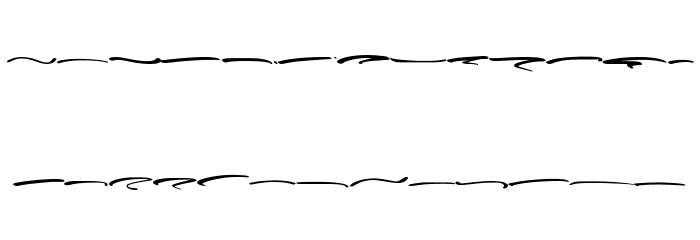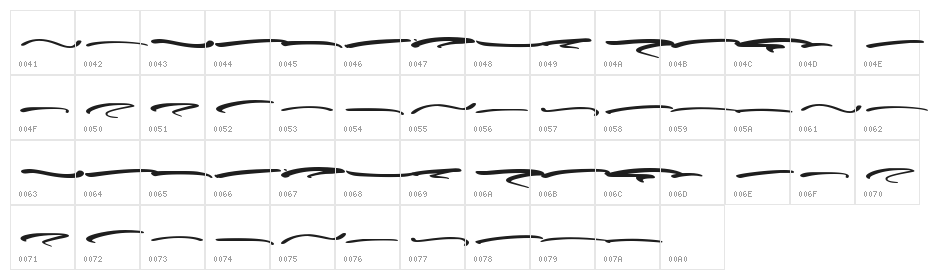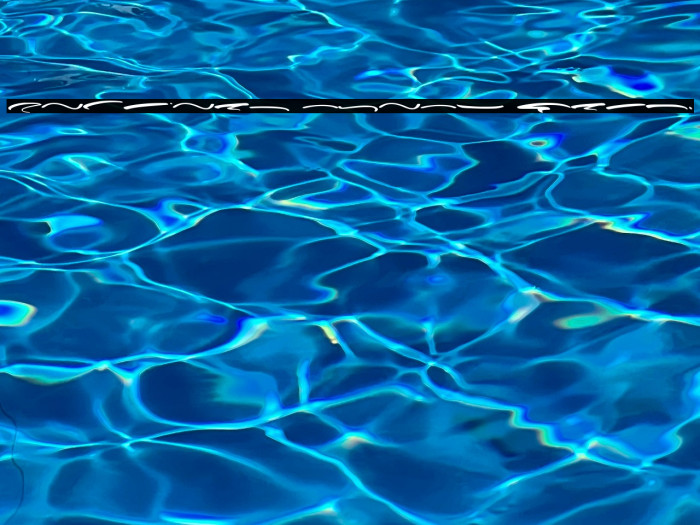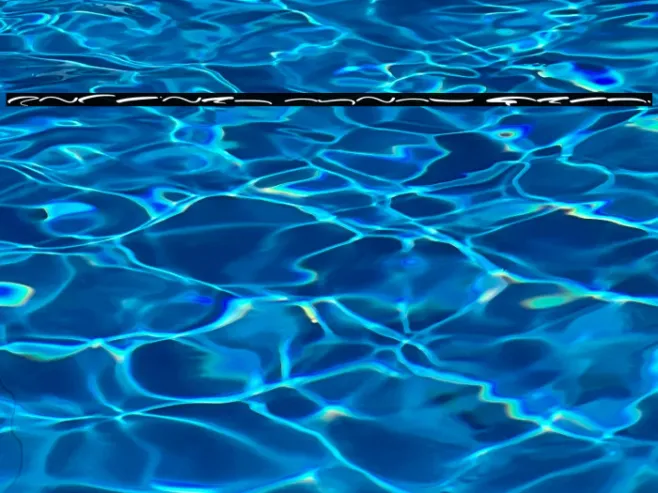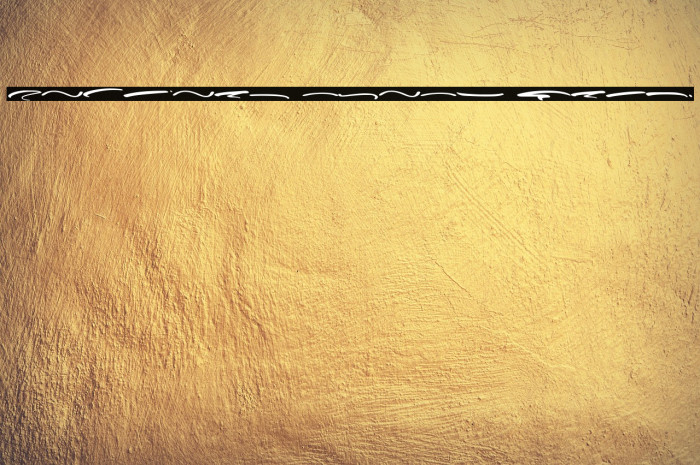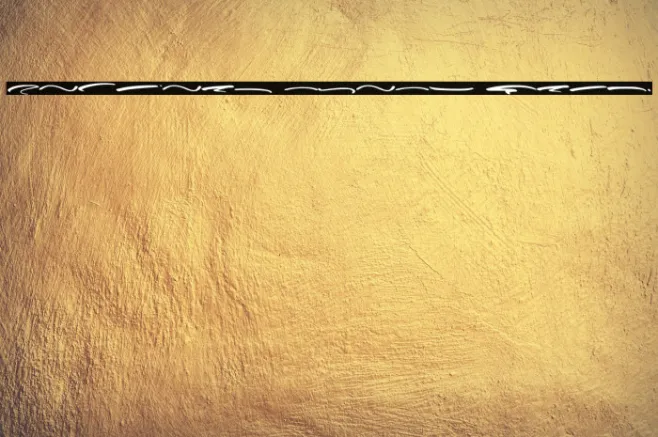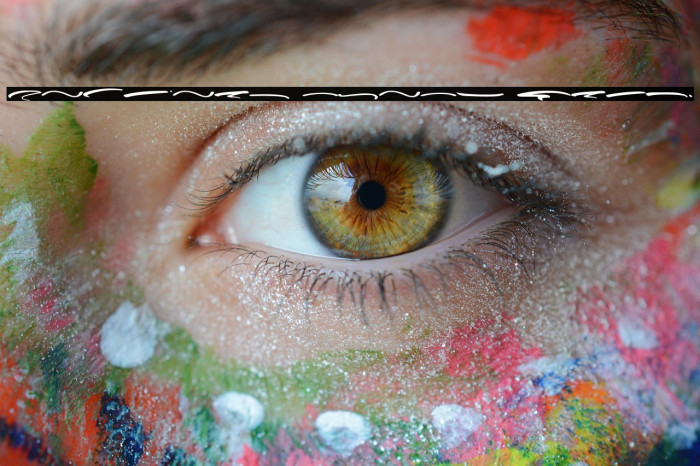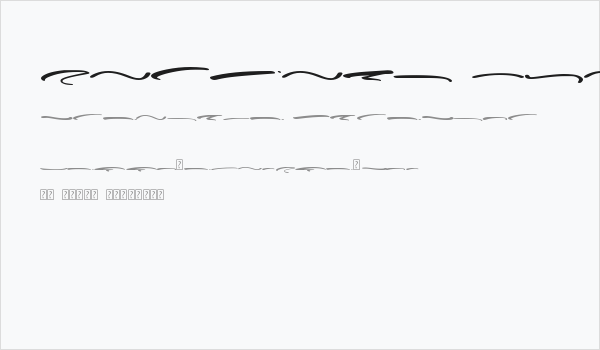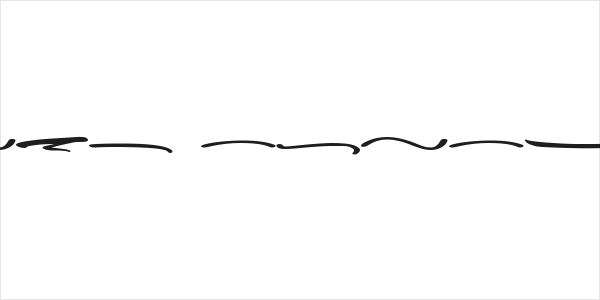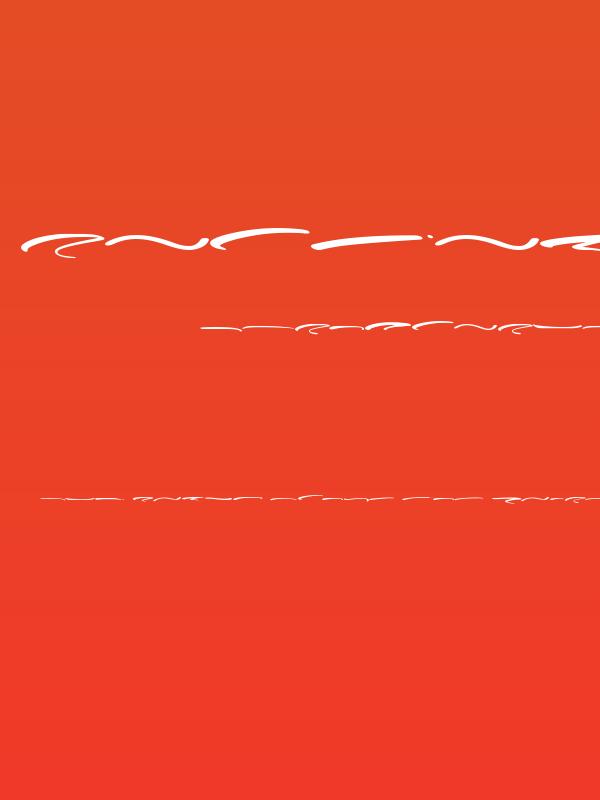
Parfait Swash Line Font
Parfait Swash Line Description
A decorative set of hand-drawn swash lines with varying thickness and fluid, organic curves, resembling calligraphic flourishes.
| Overall Style | Decorative, Hand-drawn, Calligraphic |
| Use Case | Decorative elements, Borders, Accents |
| Proposed Projects | Invitations, certificates, greeting cards, decorative dividers, branding accents. |